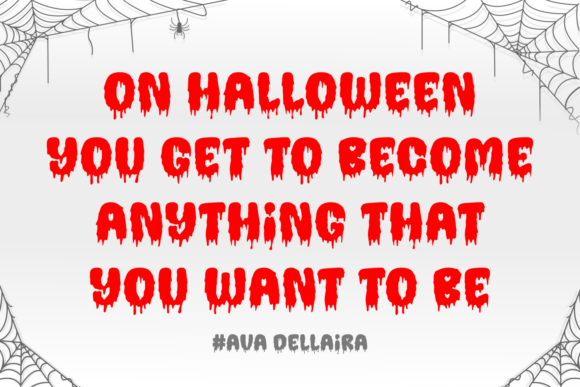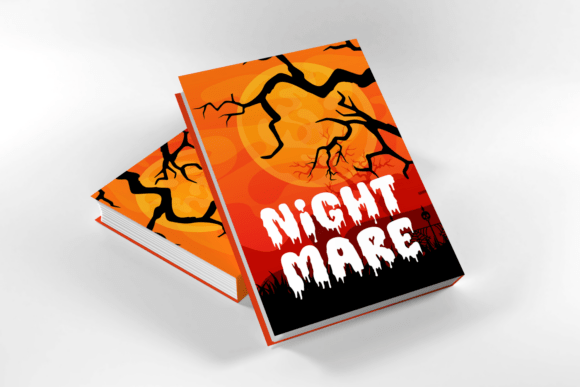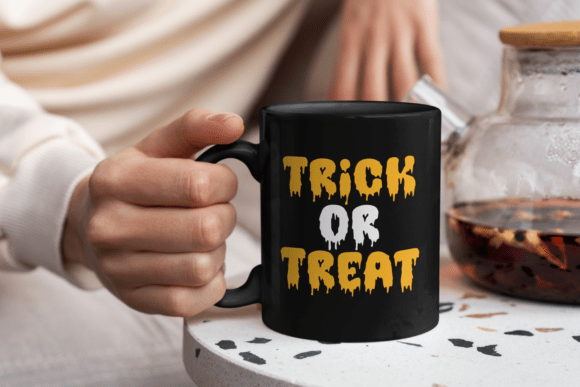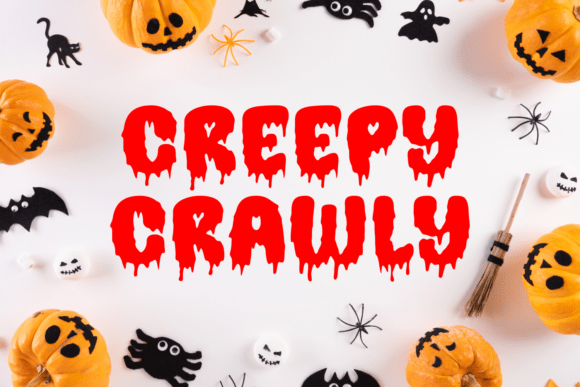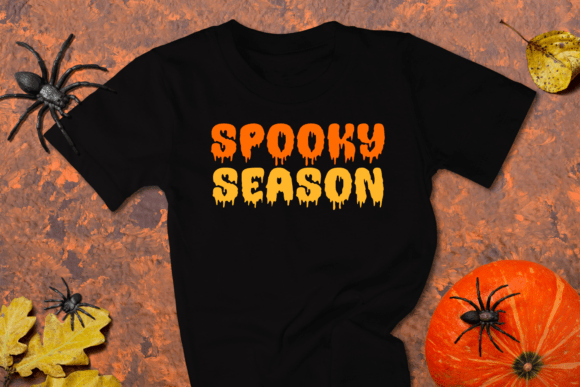
Unlock the Spirit of Halloween with Ghoul Friend Font
As the witching hour approaches, designers and crafters are on the lookout for the perfect font to capture the essence of Halloween. Look no further than “Ghoul Friend”, a display font that embodies the spooky vibes and vintage atmosphere of the haunted holiday. With its eerie and playful charm, this font is sure to transport you and your audience to a night of thrills and chills.
The Perfect Font for Halloween Designs
Ghoul Friend font is specifically designed to bring the thrill and chill of Halloween to any platform. Its unique and creepy aesthetic makes it perfect for a wide range of applications, including graphic tumbler designs, creepy clothing prints, Halloween t-shirts, eerie party invitations, and spine-chilling greeting cards. Whether you’re a designer, crafter, or DIY enthusiast, this font is sure to get you into the witchy holiday spirit.
Inspiration from Witch Fonts and Ghost Fonts
Ghoul Friend font draws inspiration from witch fonts and ghost fonts, giving it a distinctive and haunting quality. The font’s design is reminiscent of classic Halloween typography, with intricate details and a touch of nostalgia. Yet, it also carries strong modern vibes, making it versatile enough to be used in a variety of contexts beyond Halloween.
Beyond Halloween: Versatility in Design
While Ghoul Friend font is perfect for Halloween designs, its versatility extends far beyond the spooky season. The font can be used for logotypes, sublimation projects, branding initiatives, and more. Its striking and attention-grabbing design makes it an excellent choice for any project that requires a bold statement. Whether you’re designing for a client or creating something for personal use, Ghoul Friend font is sure to make a lasting impression.
Practical Applications for Designers and Crafters
Ghoul Friend font is equally effective on Cricut or for Halloween sticker designs, making it a great addition to any designer’s or crafter’s toolkit. Here are some practical applications for the font:
- Graphic tumbler designs: Add a spooky touch to your tumblers with Ghoul Friend font.
- Creepy clothing prints: Design Halloween t-shirts, hoodies, or costumes with this eerie font.
- Eerie party invitations: Create spine-chilling invitations for Halloween parties or events.
- Spine-chilling greeting cards: Design unique and haunting greeting cards for special occasions.
- Sublimation projects: Use Ghoul Friend font for sublimation projects, such as ghostly-themed mugs or t-shirts.
- Branding initiatives: Create a bold and striking brand identity with this horror font.
Tips for Using Ghoul Friend Font
To get the most out of Ghoul Friend font, here are some tips:
- Experiment with different colors and textures to enhance the font’s eerie effect.
- Pair the font with other Halloween-themed graphics or illustrations for a cohesive look.
- Use the font in combination with other typography for a unique and eye-catching design.
- Don’t be afraid to get creative and try out new and innovative design ideas.
Ghoul Friend font is a must-have for designers and crafters looking to capture the spirit of Halloween. With its unique blend of spooky and playful charm, this font is perfect for a wide range of applications, from graphic designs to crafting projects. Whether you’re designing for Halloween or beyond, Ghoul Friend font is sure to make a striking statement. So why wait? Unlock the spirit of Halloween with Ghoul Friend font and get ready to cast a spell of creativity and inspiration.